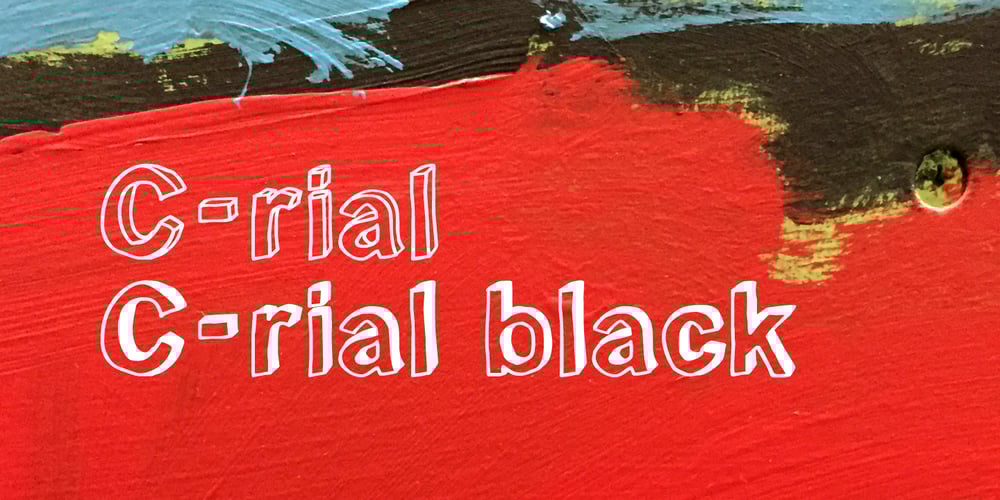
C rial Font Family was designed by Jeroen “Joebob” van der Ham and published by JOEBOB graphics. C rial contains 3 styles and family package options. C rial is two fonts for the price of one! A 3-D font with edges to be filled by yourself and a version with filled edges.